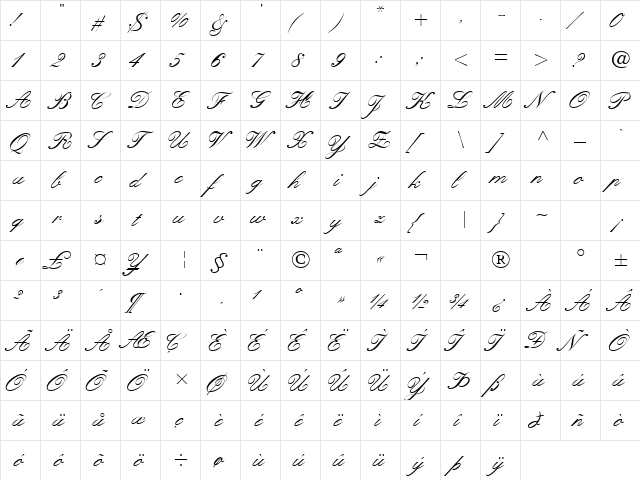
QuillScriptSSK Regular
Design Context for QuillScriptSSK Typeface
QuillScriptSSK flows with the natural rhythm of handwritten lettering, making it ideal for designs that call for warmth and personal expression.
Font Pairing: Combine QuillScriptSSK with a simple geometric sans for maximum contrast — the tension between flowing curves and clean structure is a classic typographic pairing.
Pro Tip: Pair QuillScriptSSK with a clean sans-serif for supporting text. The contrast between fluid script and geometric structure creates an elegant typographic hierarchy.